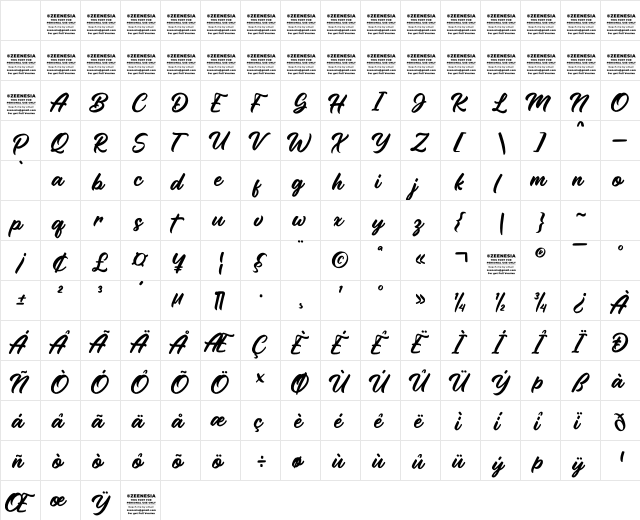
Panther Hunter Personal Use Onl Regular Free Font
Panther Hunter Personal Use Onl Regular
Design Context for Panther Hunter Personal Use Onl
Panther Hunter Personal Use Onl is a composed and adaptable typeface that performs quietly and consistently across a wide range of design contexts.